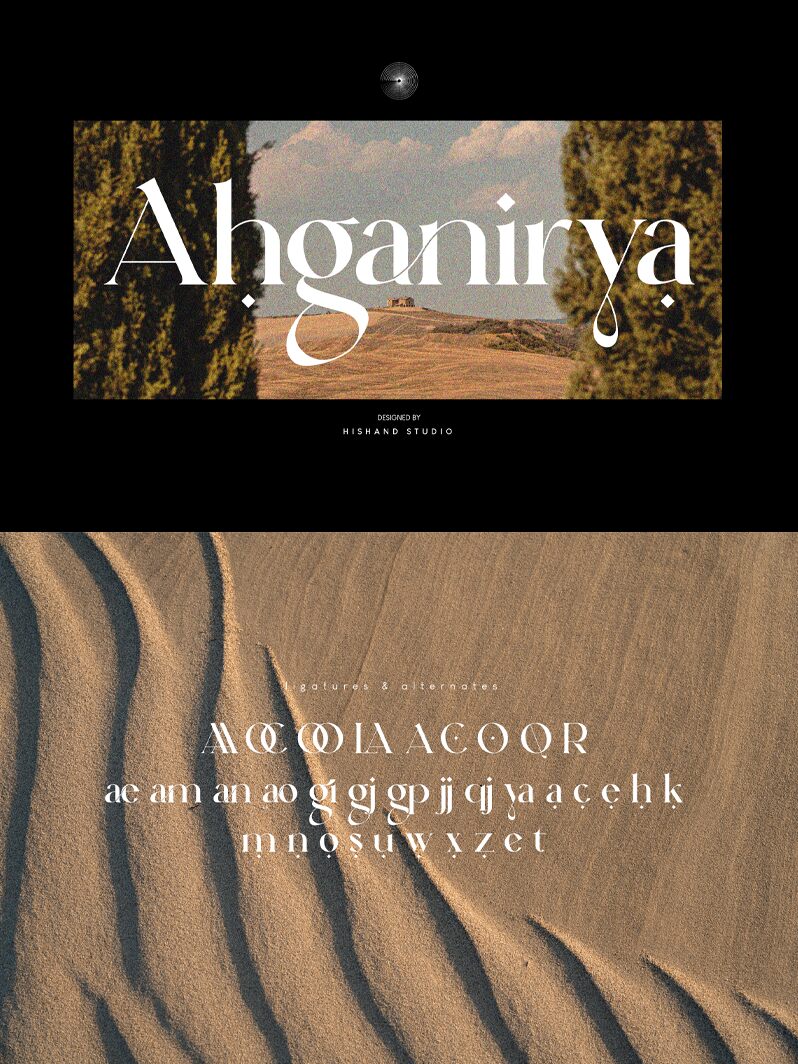
Ahganirya font by Hishand Studio is a sophisticated serif typeface that exudes elegance and style. Characterized by its flowing curves and refined serifs, it strikes a perfect balance between tradition and modernity. The exaggerated loops add a touch of artistic flair, making it ideal for creating eye-catching designs.
Perfect for branding, editorial design, or high-end invitations, Ahganirya captures attention with its unique presence. Whether it's for luxury branding or an elegant magazine layout, this free font offers versatility and aesthetic appeal.
Ahganirya
Hishand Studio